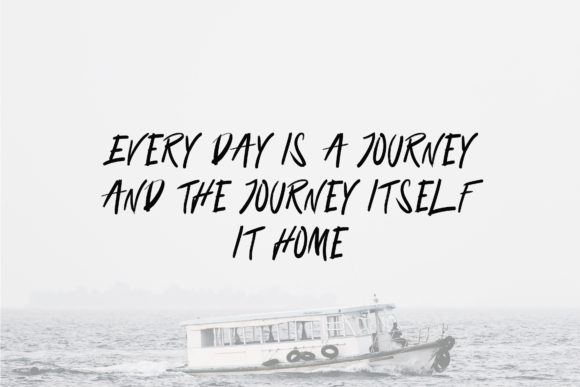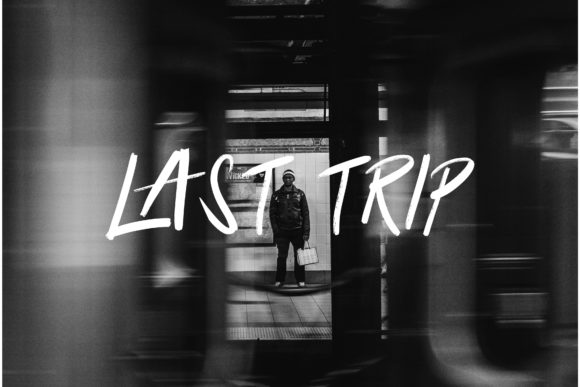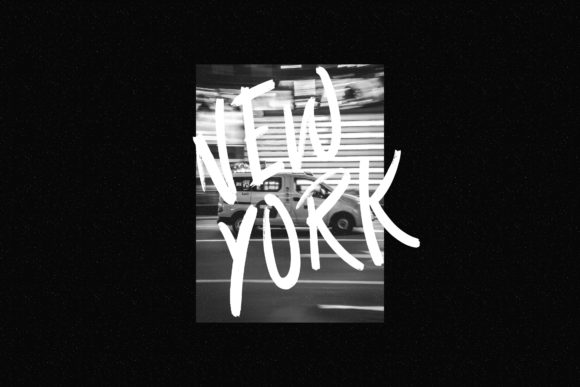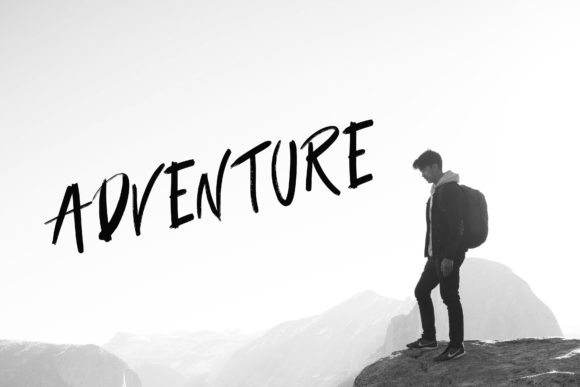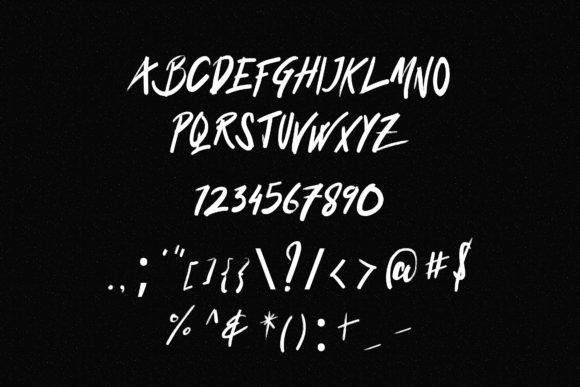
Introduction to Long Jurney Font
Long Jurney is a cool, rough textured display font.
This font is suitable for designs such as t-shirts, sportswear, logos, advertisements, clothing, and more .
Long Jurney Font offers exceptional quality and versatility, making it a valuable addition to your design toolkit. Whether you’re creating for personal projects or commercial use, Long Jurney Font delivers professional results.